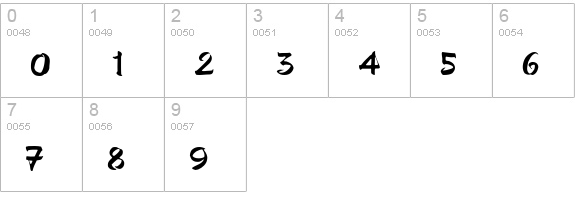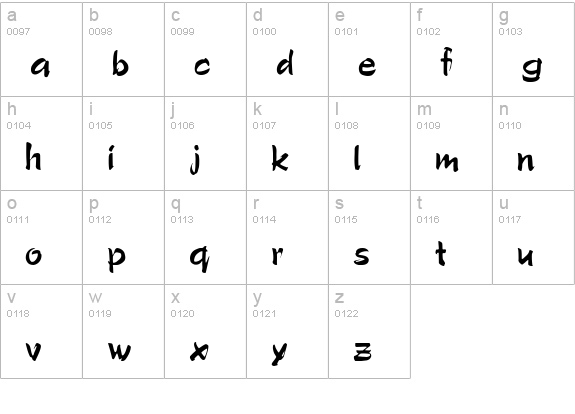
Polo Brush MF font is a unique and stylish typeface that exudes charm and creativity. With its hand-painted brush strokes and modern flair, this font is perfect for adding a personal touch to your designs. The irregular letterforms and textured appearance give Polo Brush MF a playful and dynamic feel, making it ideal for projects that require a casual yet eye-catching look. The best part is that Polo Brush MF font is available for free download at FontsMarket.com. Whether you're working on a branding project, poster design, or any other creative endeavor, this font will surely make your work stand out. Don't miss the opportunity to add this versatile and engaging font to your collection today!